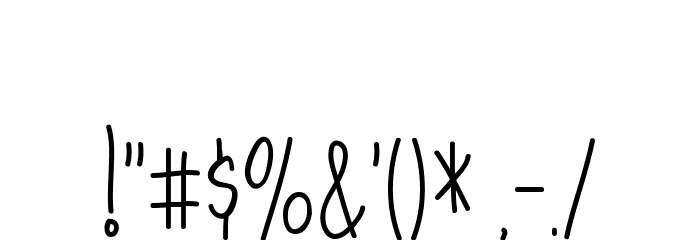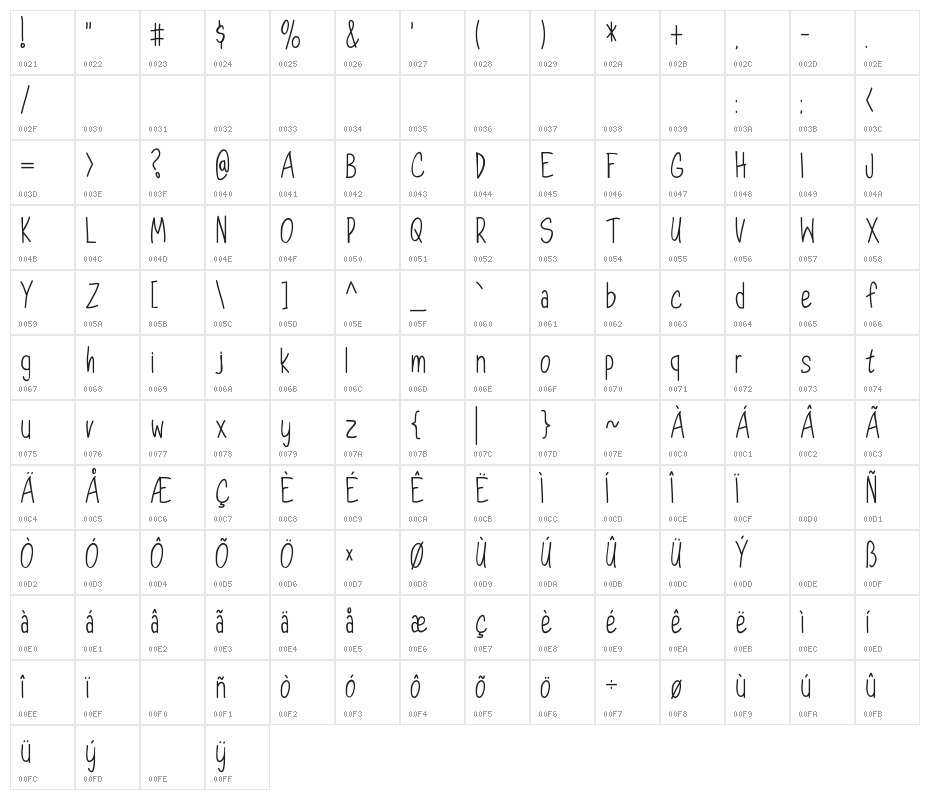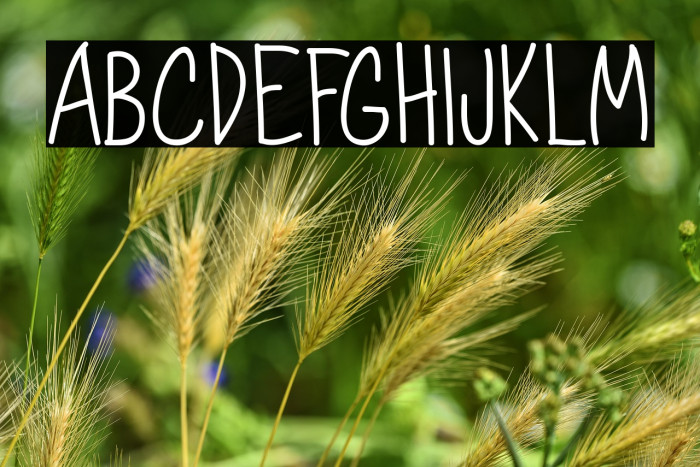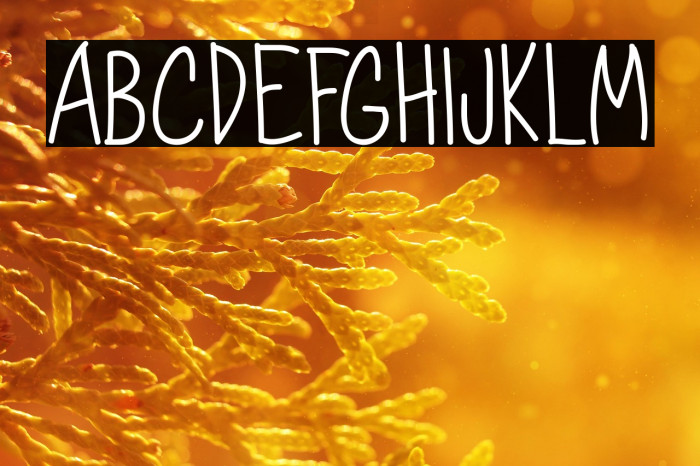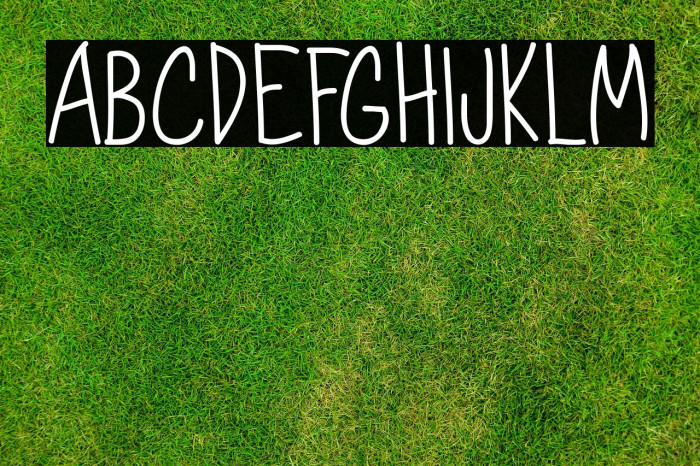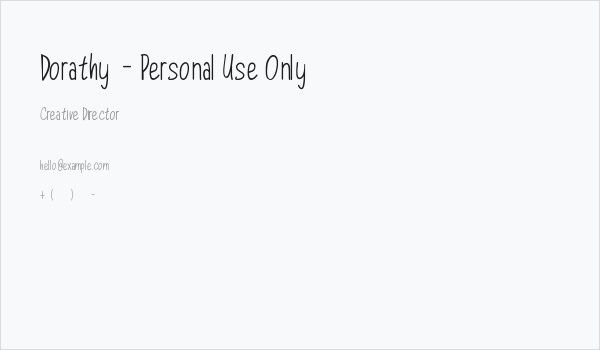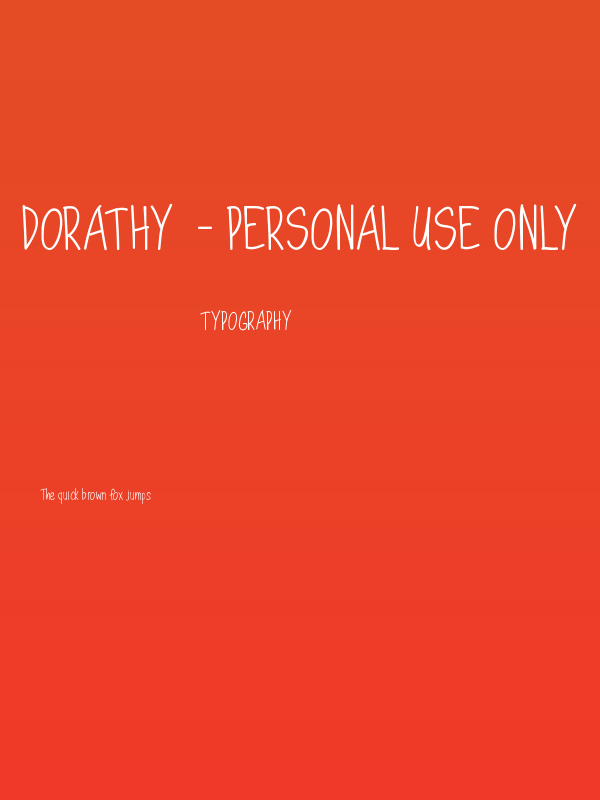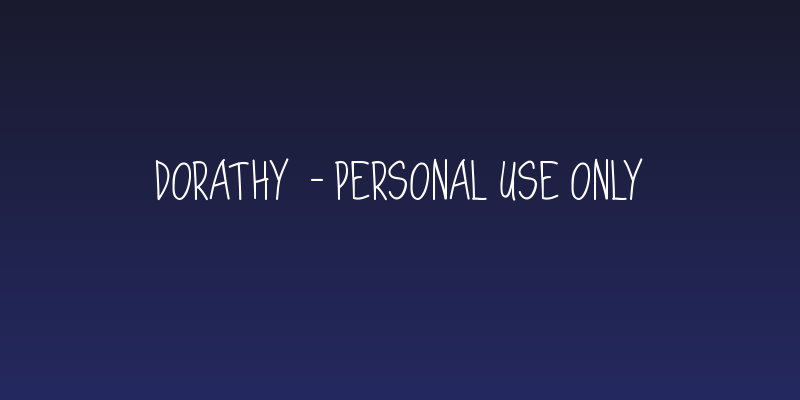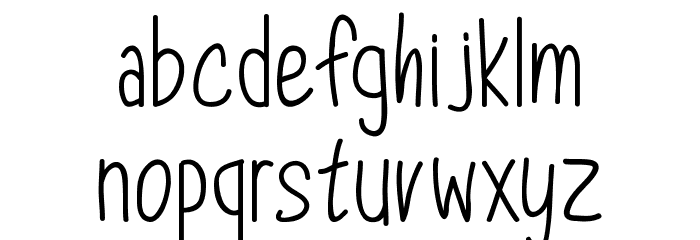
Dorathy - Personal Use Only Font
Dorathy - Personal Use Only Description
This font features a playful and casual handwritten style, characterized by its slightly irregular and organic letterforms. The uppercase and lowercase letters maintain a consistent flow, with rounded edges and a friendly appearance. The font includes a full set of uppercase and lowercase letters, numbers, and a variety of special characters, making it versatile for different uses. Its informal and approachable design is suitable for projects that aim to convey warmth and personality.
| Use Case | Headlines, Informal text, Personal projects |
| Proposed Projects | Ideal for greeting cards, children's books, personal blogs, and informal branding projects. |